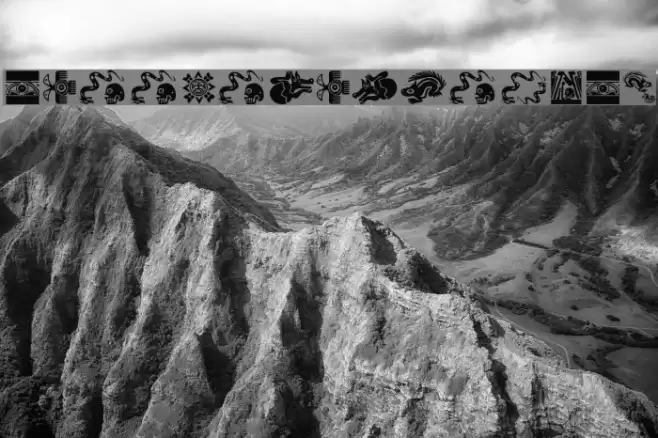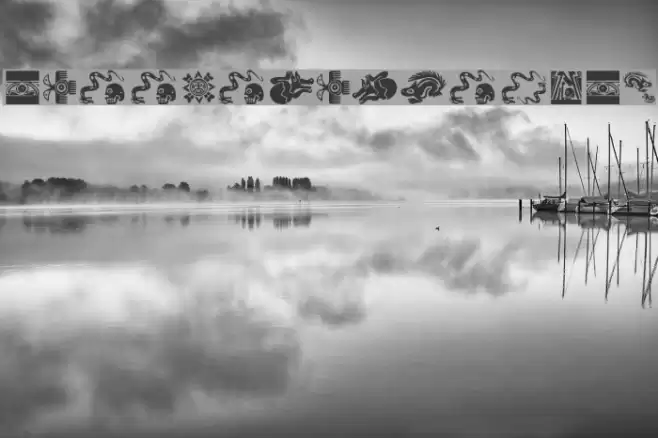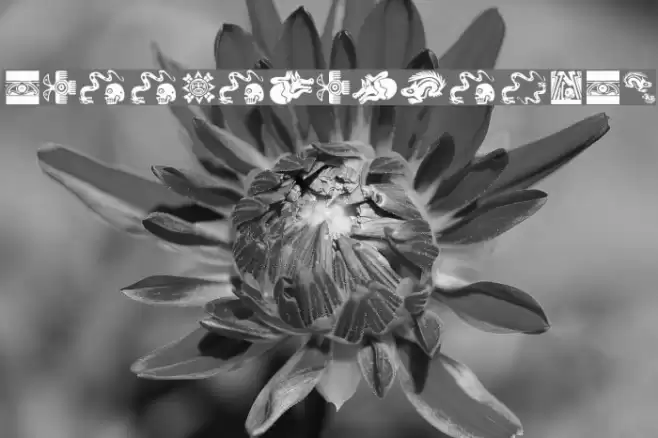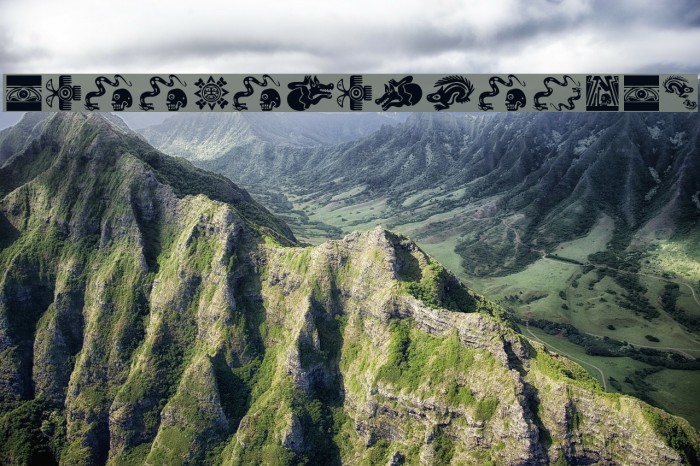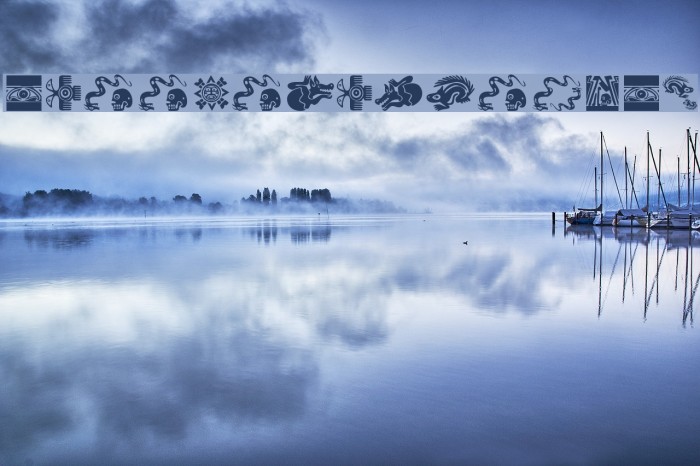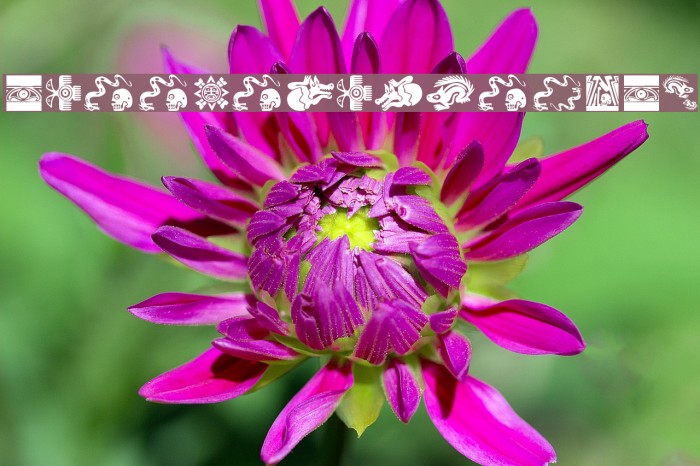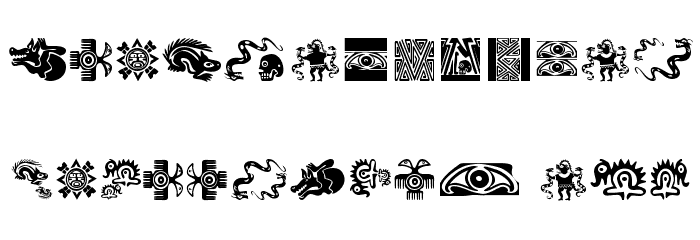
GreeceArtDesign Font
GreeceArtDesign Description
A highly decorative and illustrative font featuring intricate, bold glyphs inspired by ancient or tribal art motifs, including animals, geometric patterns, and symbolic shapes. Each character is unique and visually complex, making it more of a pictorial or dingbat style than a traditional alphabet.
Ornate, tribal-inspired pictorial font with bold, intricate glyphs from Uncategorized fonts.
- Proposed Projects: Posters, event flyers, themed branding, cultural or historical projects, decorative borders, art projects.
- Overall Style: Decorative, Tribal, Artistic
- Use Case: Logos, Posters, Decorative elements, Themed graphics